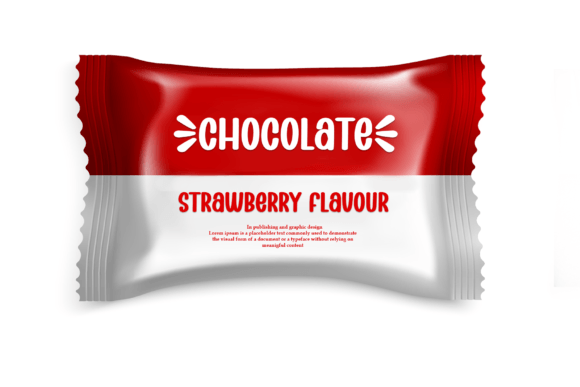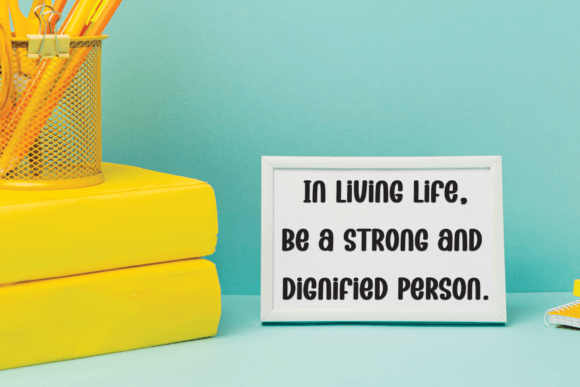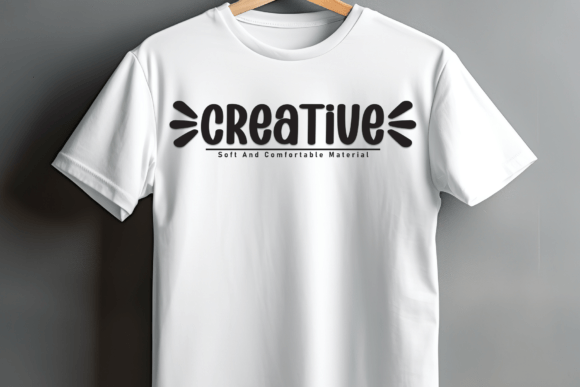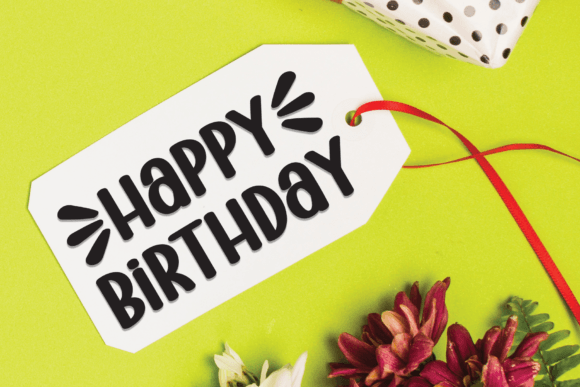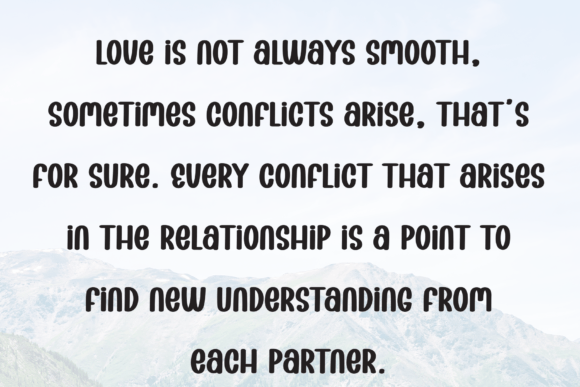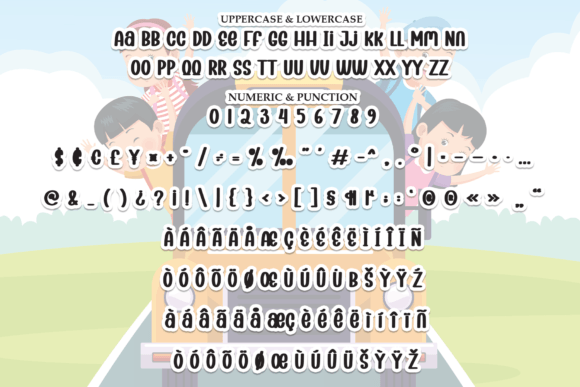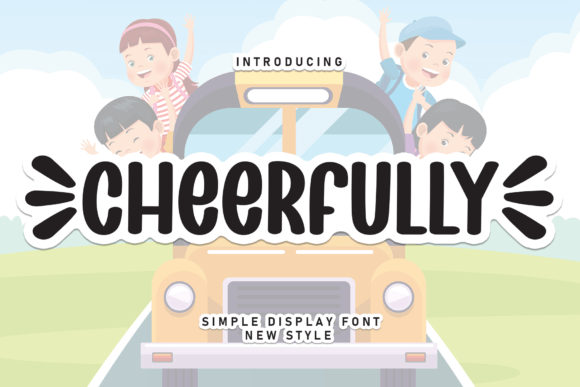
Introducing Cheerfully Font: Elevate Your Designs with Elegance and Timeless Style
Are you on the hunt for a font that adds a touch of elegance and sophistication to your designs? Look no further than Cheerfully Font, a stunning handwritten font that is sure to capture your heart. With its neat and beautiful appearance, Cheerfully Font is the perfect choice for designers and crafters looking to create spectacular designs that stand out from the crowd.
The Charm of Cheerfully Font
Cheerfully Font is described by its elegant touch, which sets it apart from other fonts in its category. Its incredibly distinct and timeless style makes it an excellent choice for a wide range of projects, from wedding invitations and branding materials to social media graphics and more. Whether you’re a professional designer or a DIY crafter, Cheerfully Font is sure to inspire your creativity and help you create stunning designs that leave a lasting impression.
What Makes Cheerfully Font So Special?
So, what makes Cheerfully Font so special? Here are just a few reasons why designers and crafters are falling in love with this beautiful font:
• Elegant and Refined: Cheerfully Font boasts an elegant and refined appearance that is perfect for designs that require a touch of sophistication.
• Handwritten with Love: This font is carefully crafted with a handwritten touch, giving it a warm and personal feel that is hard to replicate with digital fonts.
• Versatile: Cheerfully Font is incredibly versatile, making it suitable for a wide range of projects, from formal events to casual social media graphics.
• Distinct and Timeless: With its unique and timeless style, Cheerfully Font is sure to stand the test of time and remain a popular choice for designers and crafters for years to come.
How to Use Cheerfully Font in Your Designs
Using Cheerfully Font in your designs is easy! Here are a few tips to get you started:
• Pair it with Other Fonts: Experiment with pairing Cheerfully Font with other fonts to create a unique and eye-catching combination.
• Use it for Headings and Titles: Cheerfully Font is perfect for headings and titles, where its elegant and refined appearance can really shine.
• Add it to Your Brand Kit: If you’re a business owner or entrepreneur, consider adding Cheerfully Font to your brand kit to give your designs a consistent and professional look.
Who Can Benefit from Using Cheerfully Font?
Cheerfully Font is perfect for a wide range of designers and crafters, including:
• Graphic Designers: Whether you’re working on a client’s project or creating your own designs, Cheerfully Font is a great addition to your font library.
• Wedding Planners and Coordinators: Add a touch of elegance to your wedding invitations, programs, and other stationery with Cheerfully Font.
• Social Media Managers: Use Cheerfully Font to create eye-catching social media graphics that stand out from the crowd.
• Crafters and DIY Enthusiasts: Cheerfully Font is perfect for crafters and DIY enthusiasts who want to add a personal touch to their projects.
In conclusion, Cheerfully Font is a beautiful and elegant handwritten font that is perfect for designers and crafters looking to add a touch of sophistication to their designs. With its incredibly distinct and timeless style, Cheerfully Font is sure to become a favorite in your font library. So why wait? Fall in love with Cheerfully Font today and start creating spectacular designs that leave a lasting impression!